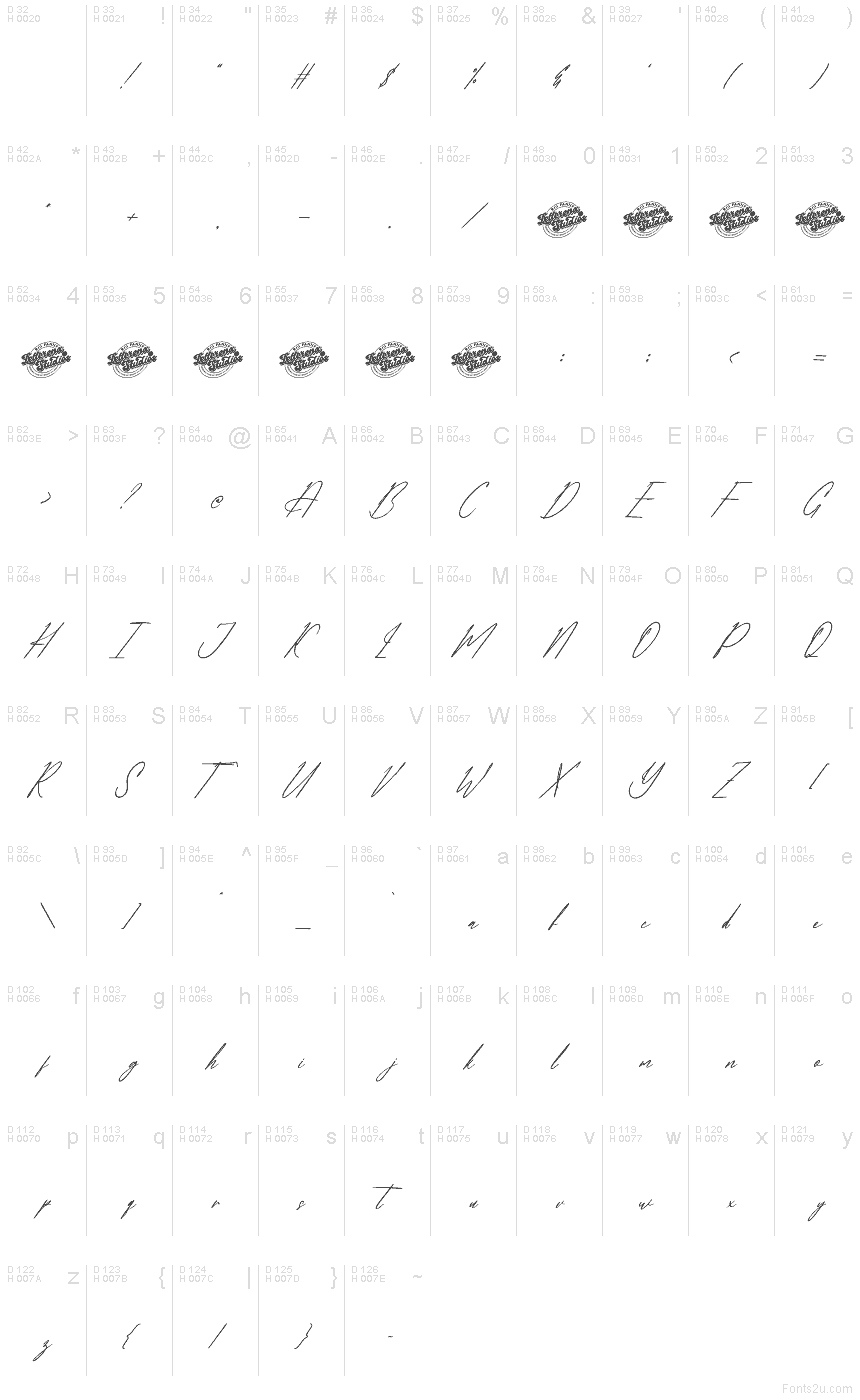
Alfinstare Qobylatin DEMO VERSI Italic
Alfinstare Qobylatin Italic font by Letterena Studios is a free handwritten script typeface. Part of the Alfinstare Qobylatin family, it flows like a quick, confident signature—slender strokes, airy loops, and a gentle rightward lean that feels freshly penned. The lines have a delicate, inky scratch that adds warmth without sacrificing clarity, giving logos and headlines that effortless, personal touch.
Using Alfinstare Qobylatin Italic shines on signature-style branding, wedding invitations, boutique packaging, beauty labels, social posts, and editorial pull quotes. Its lively rhythm reads cleanly at medium sizes, while the graceful swashes add motion and polish. For balance, pair this free font with a quiet geometric sans and keep generous letter spacing to let those wispy connections breathe.